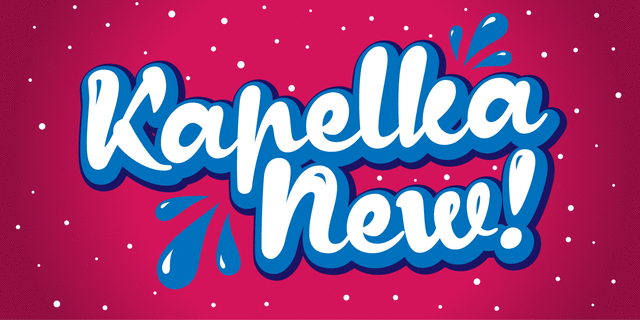
About KapelkaKapelka was designed for ParaType in 2001 by Zakhar Yaschin, prompted by a candy wrap and brush lettering. Does well in advertising and display typography.
Associations for font family KapelkaTypeface personality and character:
naive, cheerful, delicious, liquid, dashing, unstable, agile, restless, funny, glad, sweet, playful, berry, fruit, spoiled, dynamic, affable, children, alive, cartoonish, happy, quick, freewheeling, sweeping, vernacular